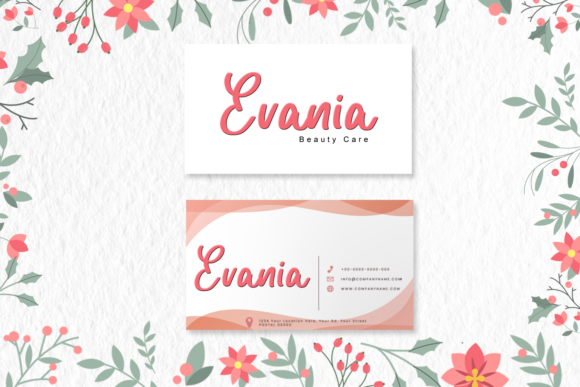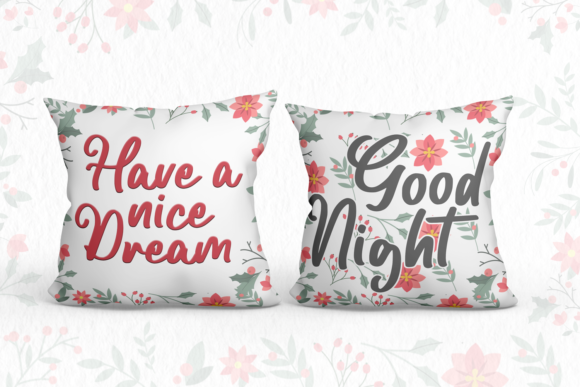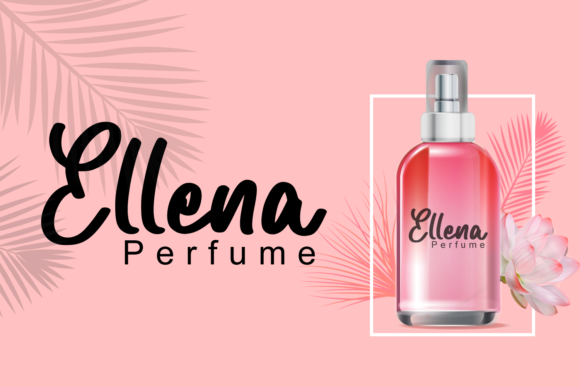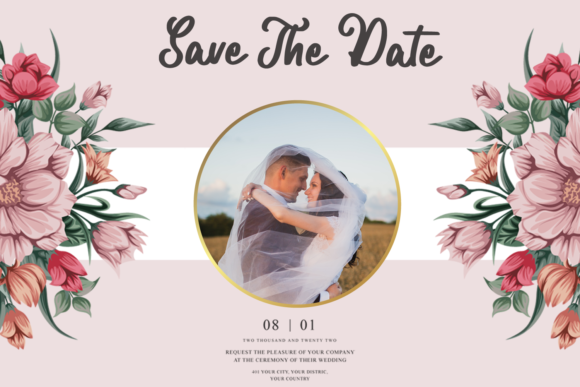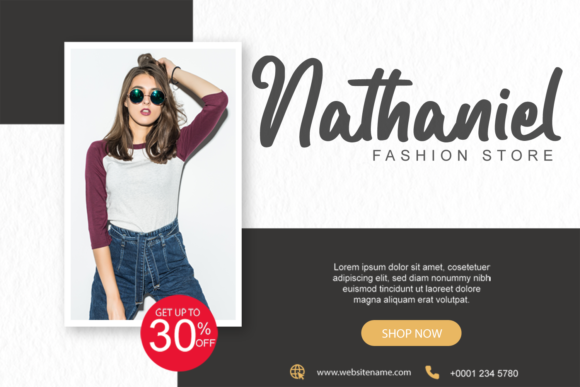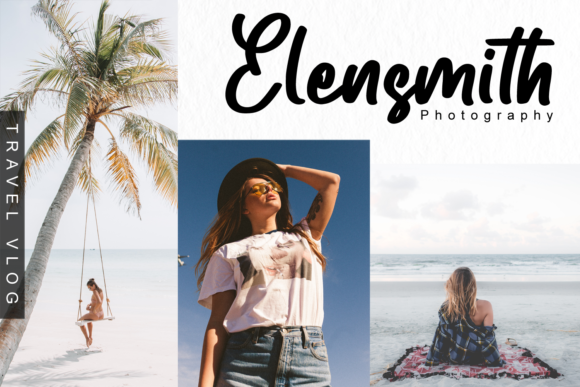
Introducing Anastasia Font: Elevate Your Designs with Elegance and Sophistication
Are you searching for a font that exudes elegance, sophistication, and timeless style? Look no further than Anastasia Font, a beautiful and classy handwritten font that is sure to capture your heart. With its distinct and refined aesthetic, Anastasia is perfect for designers and crafters looking to add a touch of luxury to their projects.
The Beauty of Anastasia Font
Anastasia Font is a stunning example of handwritten typography, boasting an elegant touch that sets it apart from other fonts. Its unique and refined style makes it an excellent choice for a wide range of design projects, from wedding invitations and branding materials to digital products and marketing collateral.
What makes Anastasia truly special is its ability to evoke a sense of sophistication and refinement. The font’s flowing lines and delicate curves create a sense of movement and fluidity, making it perfect for designs that require a touch of elegance and poise.
Key Features of Anastasia Font
- Handwritten with love: Anastasia Font is a carefully crafted handwritten font, designed to capture the essence of traditional calligraphy.
- Elegant and refined: With its delicate curves and flowing lines, Anastasia exudes sophistication and refinement.
- Timeless style: Anastasia’s classic aesthetic ensures that it will remain a popular choice for designers and crafters for years to come.
- Highly versatile: Anastasia Font can be used for a wide range of design projects, from digital products to print materials.
Why Choose Anastasia Font?
With so many fonts available, why choose Anastasia Font for your next design project? Here are just a few compelling reasons:
- Stand out from the crowd: Anastasia Font’s unique and refined style ensures that your designs will stand out from the competition.
- Easy to read: Despite its elegant aesthetic, Anastasia Font is highly legible, making it perfect for body text and headlines.
- Customizable: Anastasia Font can be easily customized to suit your design needs, from adjusting font sizes to experimenting with different colors and textures.
Using Anastasia Font in Your Designs
Anastasia Font is incredibly versatile and can be used in a wide range of design projects, including:
- Wedding invitations and stationery: Add a touch of elegance and sophistication to your wedding designs with Anastasia Font.
- Branding and packaging: Use Anastasia Font to create luxurious and refined branding materials that reflect your brand’s values and personality.
- Digital products: Anastasia Font is perfect for digital products, such as ebooks, workbooks, and online courses.
- Marketing collateral: Use Anastasia Font to create eye-catching marketing materials, such as brochures, flyers, and posters.
In conclusion, Anastasia Font is a beautiful and classy handwritten font that is sure to elevate your designs with its elegant and sophisticated aesthetic. With its timeless style, versatility, and high legibility, Anastasia Font is an excellent choice for designers and crafters looking to add a touch of luxury to their projects. So why wait? Fall in love with Anastasia Font and use it to create spectacular designs that will leave a lasting impression!